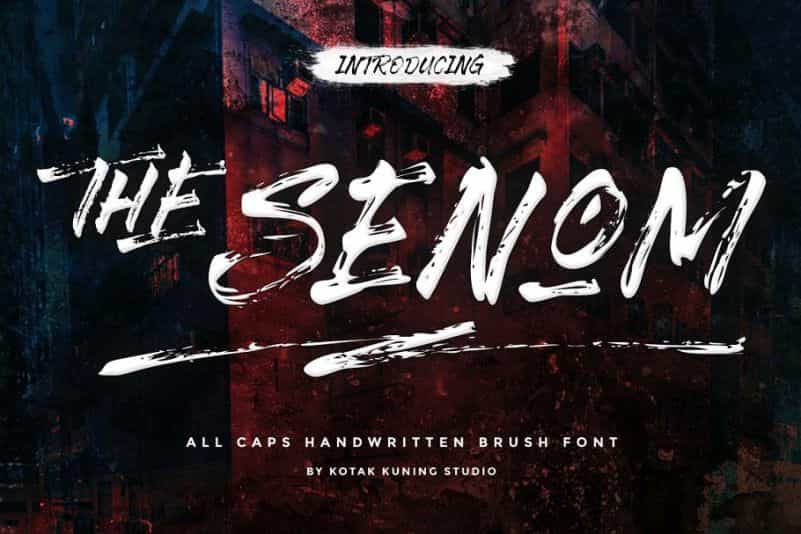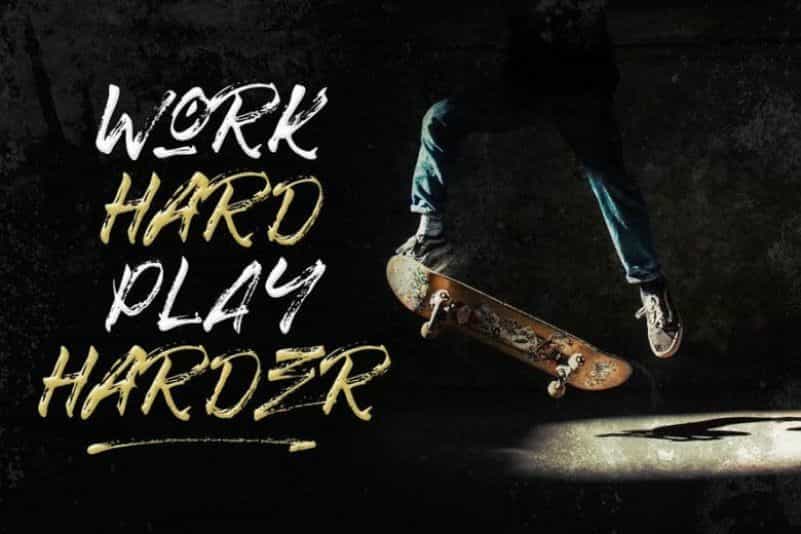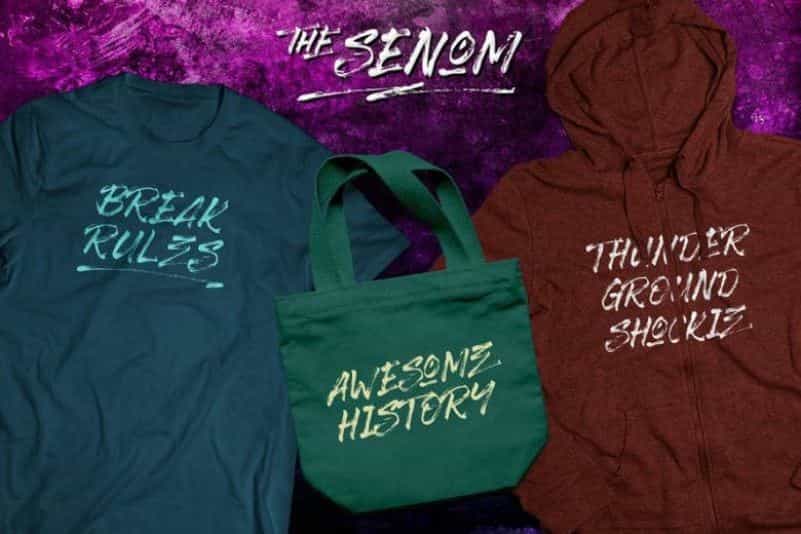
Discover The Senom Brush Font, part of the Brush collection—a versatile and unique font perfect for adding a personal touch to your projects. Download it for free and enjoy crafting designs with style, from invitations to social media posts. This font is available exclusively for personal use, giving you the freedom to create without limits. Unlock your creativity with The Senom Brush Font today!
Introducing The Senom Brush Font. It’s design and shared by Kotak Kuning Studio. All caps hand-drawn font which was designed from dry brush. This font provides more personal touch because it was created as a customized looking font.